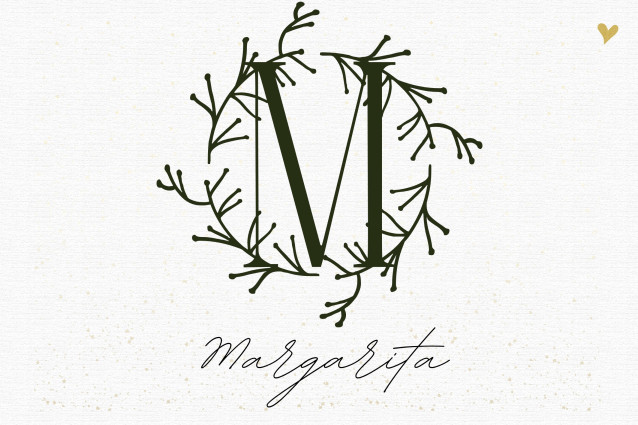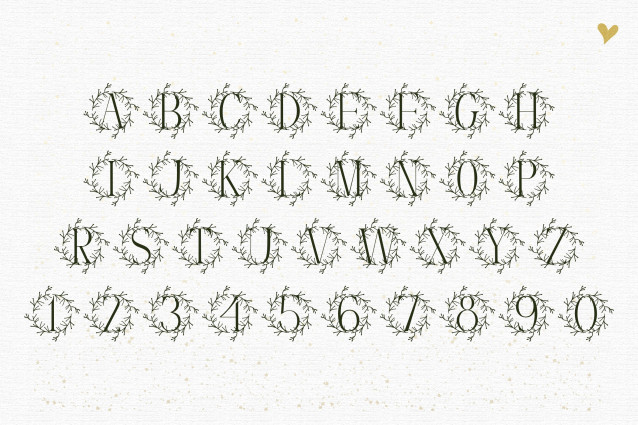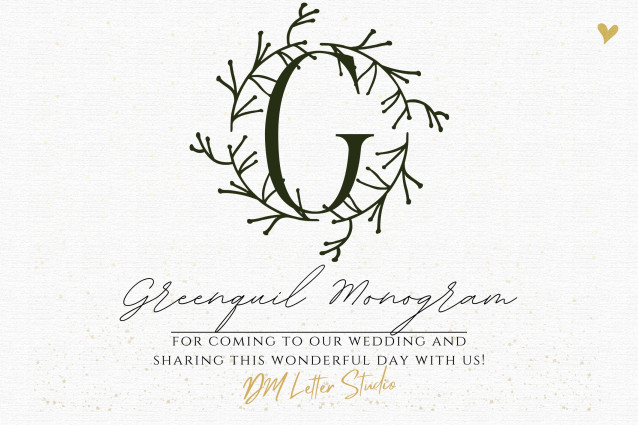
Greenquill Monogram Font
Greenquill Monogram Font is a refined serif monogram font accented with delicate greenery and quill-like flourishes. Each uppercase letter is carefully designed with botanical details, making it perfect for wedding stationery, boutique branding, packaging, and personalized projects. With its mix of timeless serif structure and organic elegance, Greenquill Monogram brings a sophisticated natural touch to your creative work.